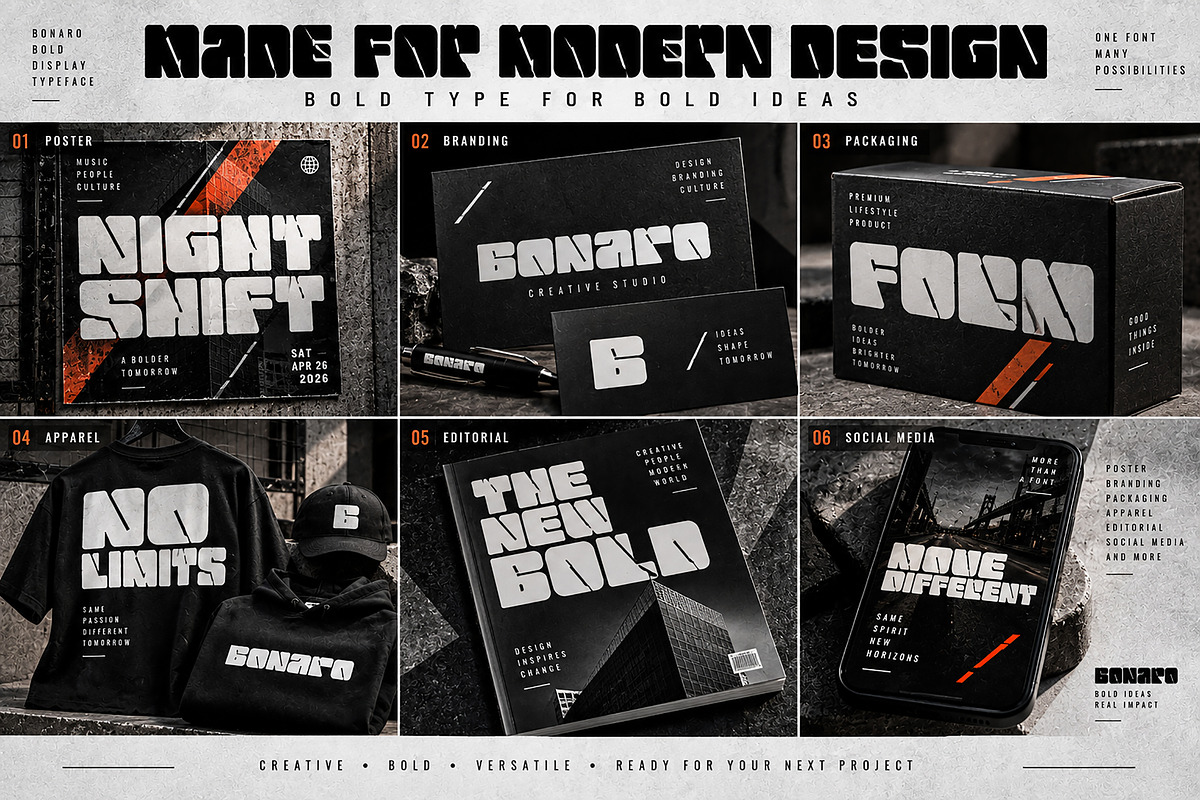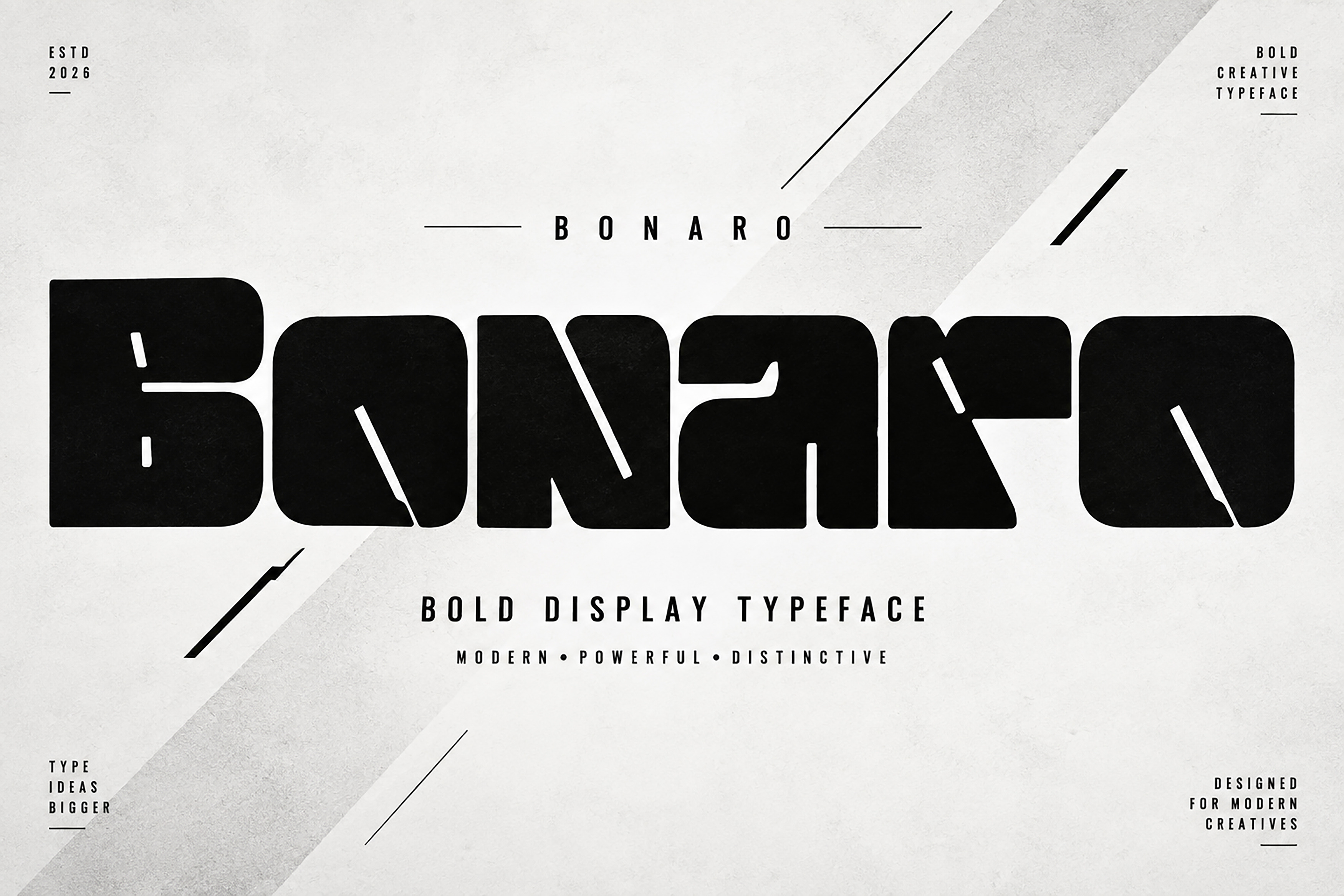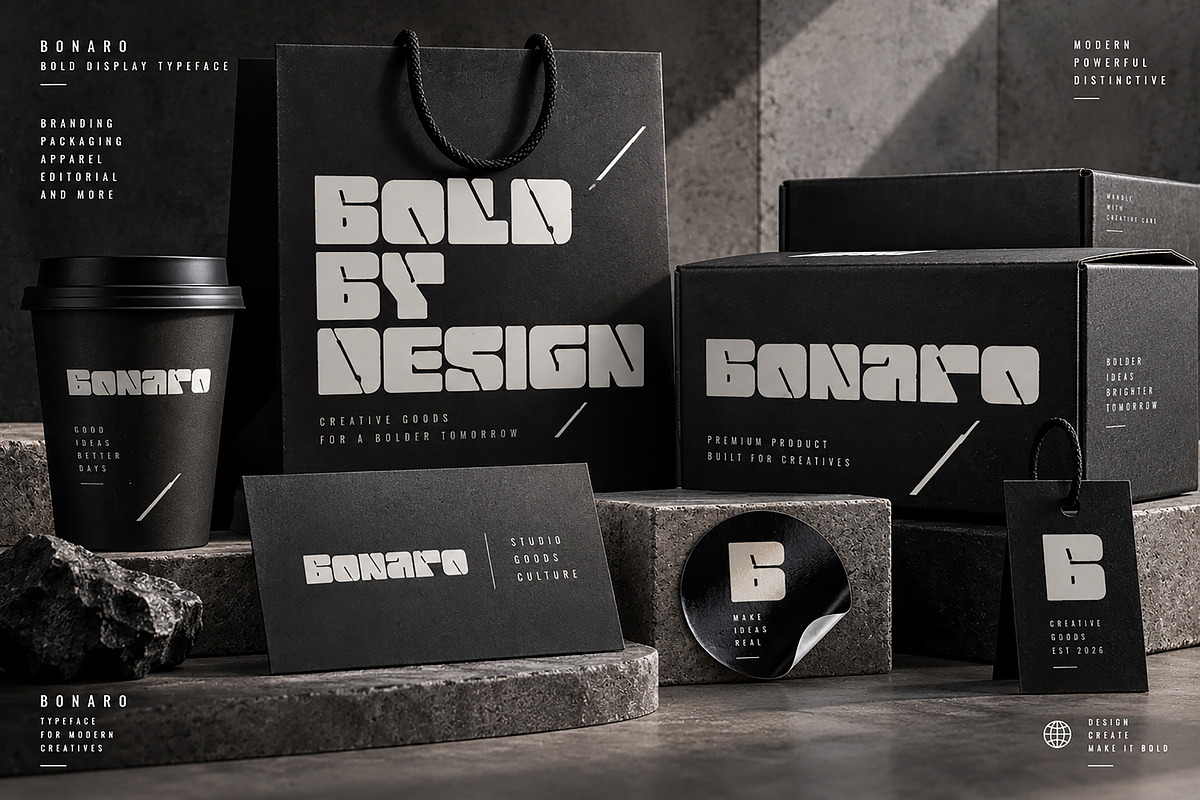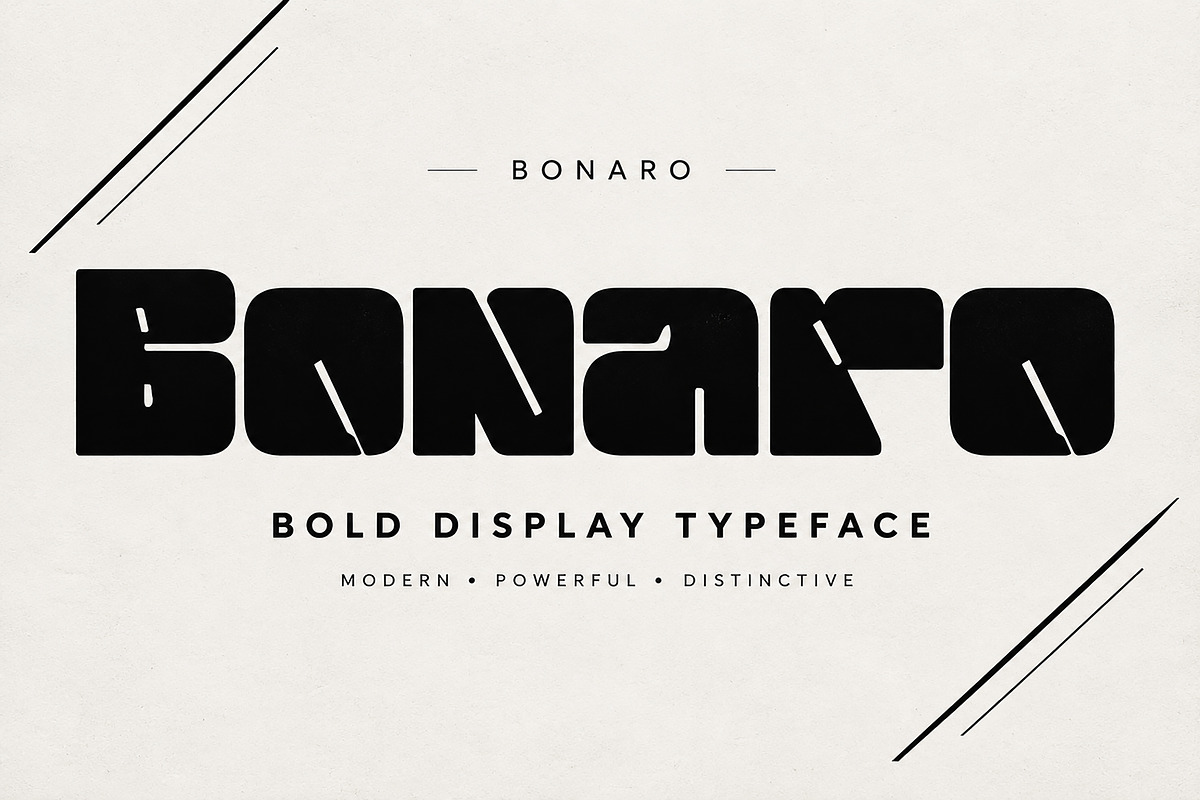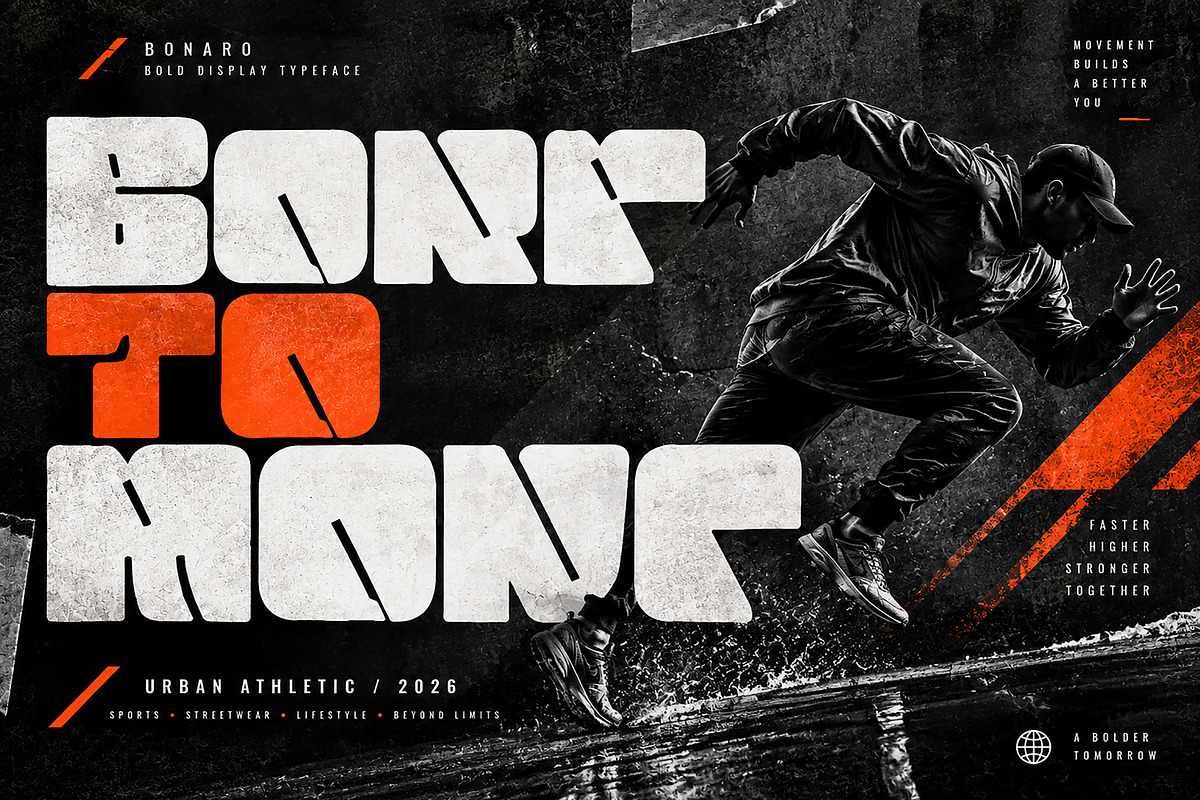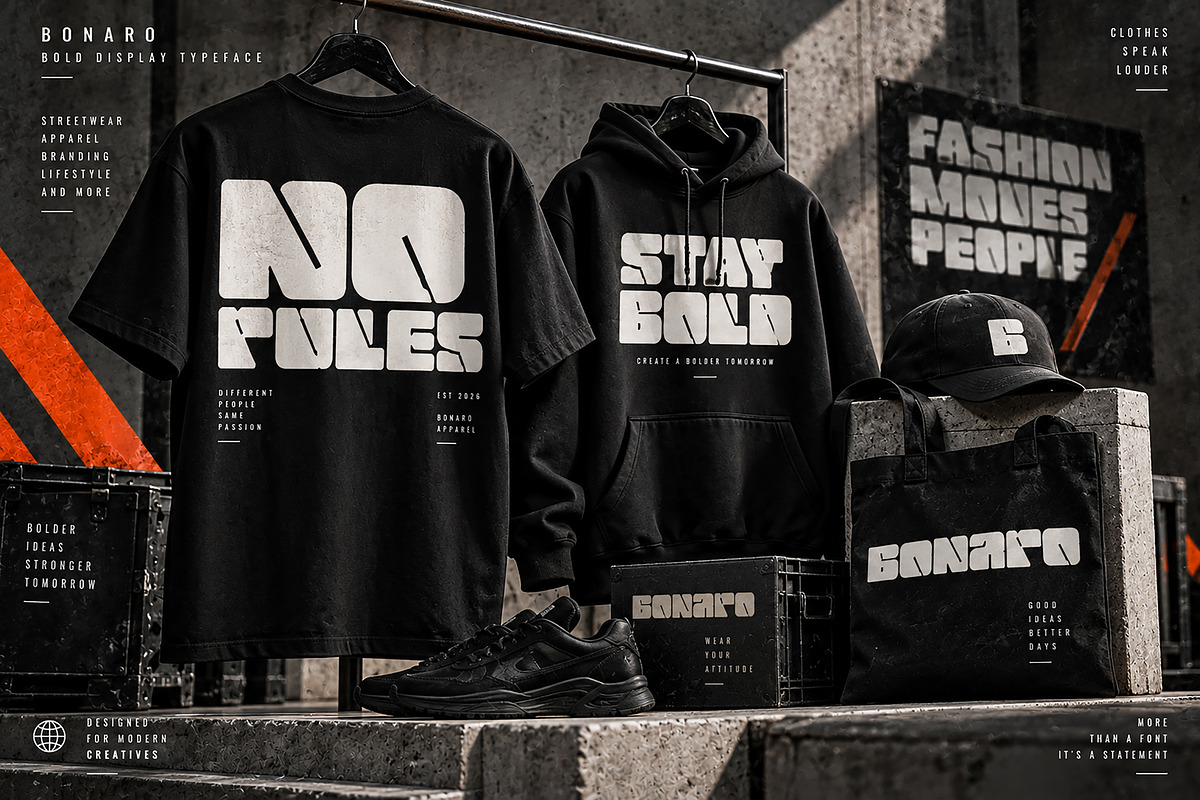
Bonaro — Bold Modern Display Font
Bonaro is a bold and powerful display typeface designed to make a strong visual impact. Featuring a heavy rounded structure with distinctive diagonal cut details, Bonaro brings a modern, energetic, and urban personality to headlines, branding, posters, apparel, packaging, and promotional designs.
Its strong geometric presence makes it ideal for projects that need bold typography and a memorable visual identity. From streetwear graphics and sports posters to logos, product packaging, editorial layouts, and social media artwork, Bonaro is built to stand out.
Logo & Brand Identity
Sports & Athletic Designs
Streetwear & Apparel
T-Shirt & Hoodie Graphics
Posters & Flyers
Product Branding
Editorial Design
Event & Promotional Designs
Headlines & Display Typography
Modern Advertising
Bold Display Typeface
Strong Rounded Letterforms
Distinctive Diagonal Cut Details
Modern Geometric Style
High-Impact Typography
Versatile for Print & Digital Projects
Create bold headlines, striking brand identities, powerful apparel graphics, and modern visual campaigns with Bonaro.